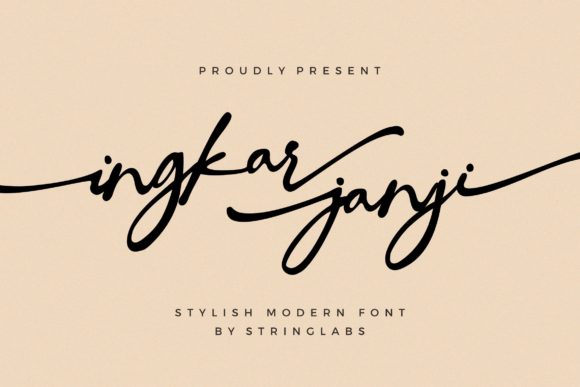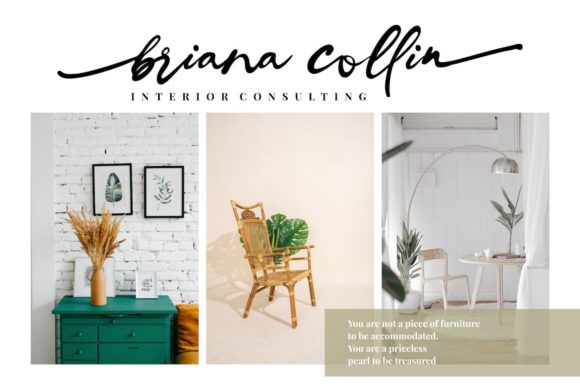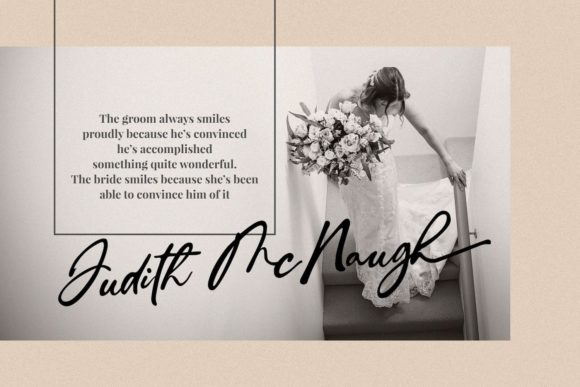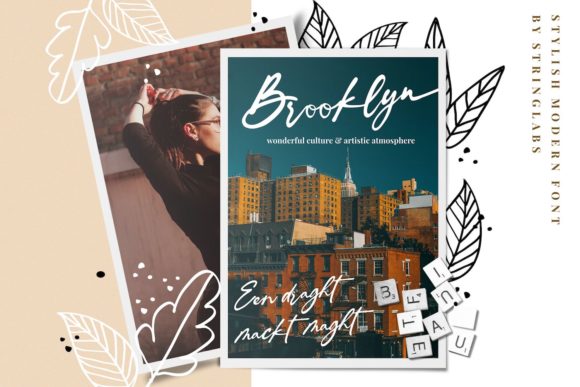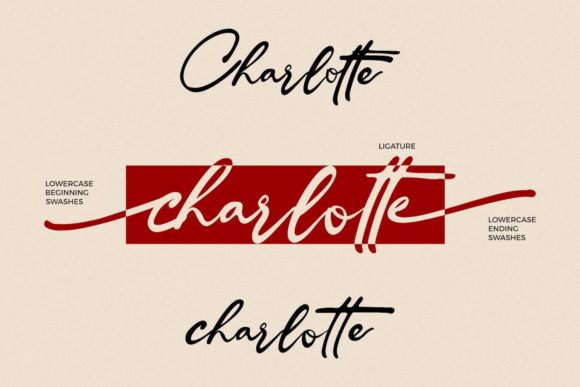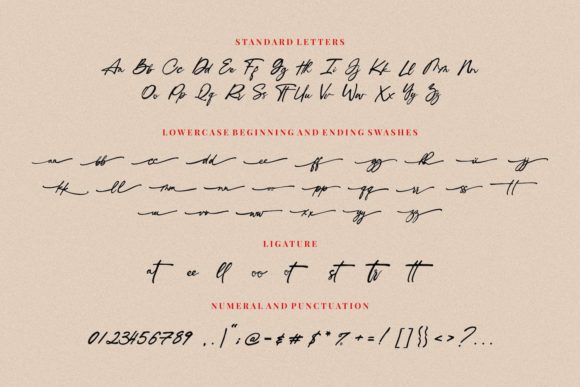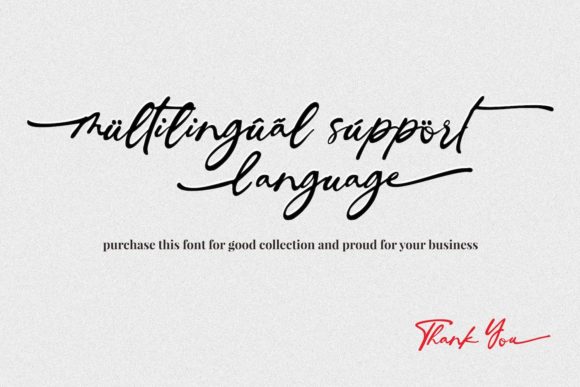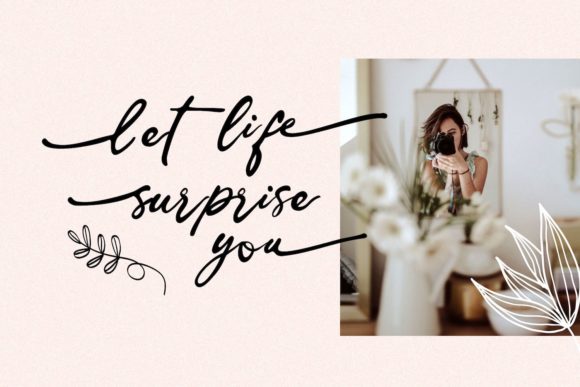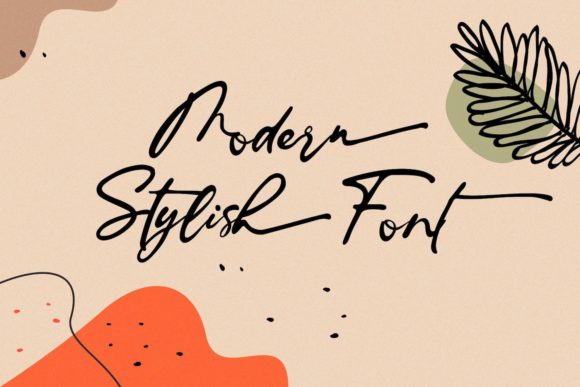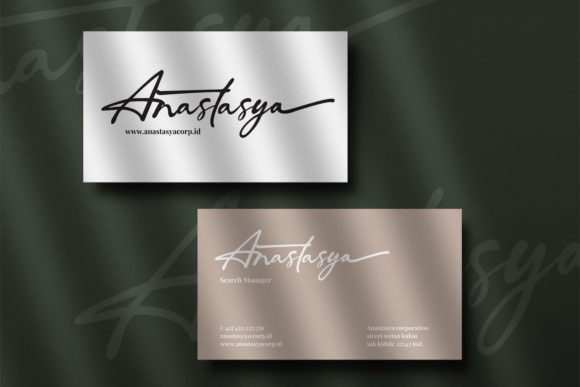
Ingkar Janji Font
About Ingkar Janji Font
Ingkar Janji feels equally charming and elegant. This stunning handwritten font is a stylish homage to classic calligraphy. It will elevate a wide range of design projects to the highest level, be it branding, headings, wedding designs, invitations, signatures, logos, labels, and much more!